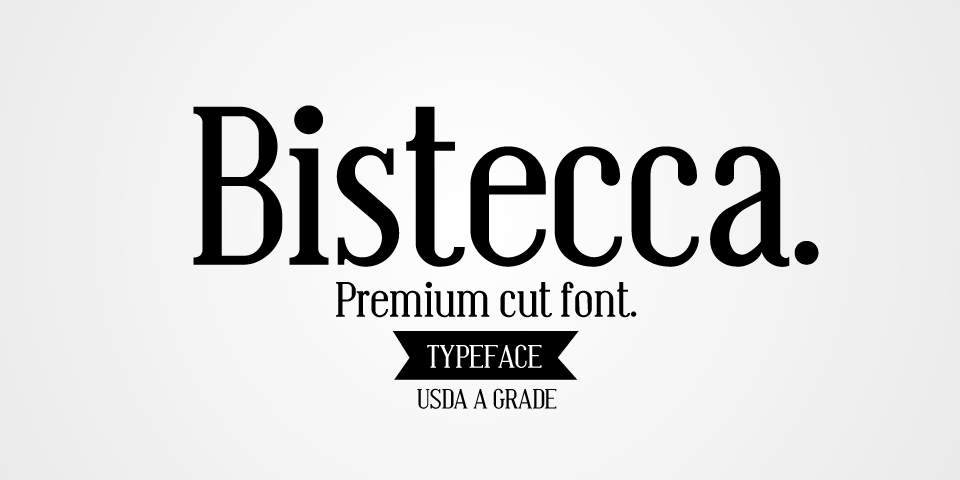
Designed by Francesco Canovaro Version 1.0.1 / released in 1999
Bistecca is a condensed serif font.
Highly readeable, it was created for headlines, captions and stylish text blocks.